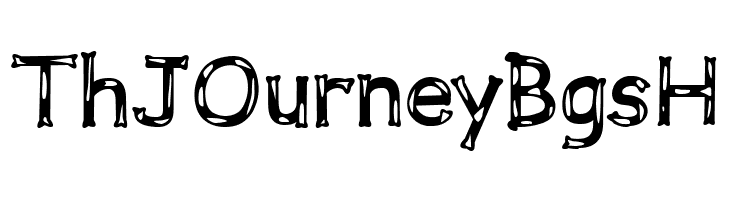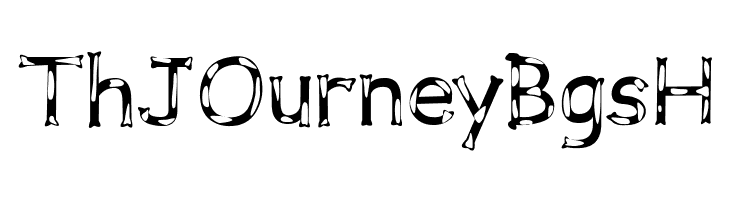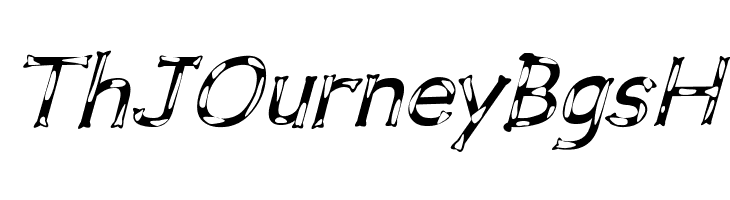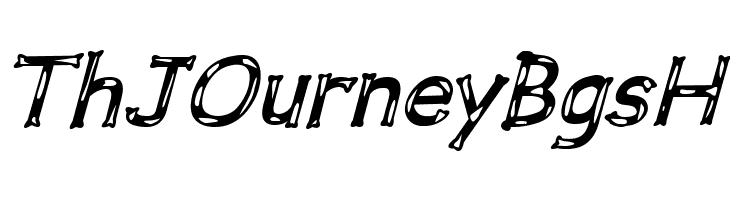
Dalmata Dream Bold Italic Font
A bold, italicized font with a playful, artistic style and irregular strokes.
Dalmata Dream Font
A playful, spotted font with a whimsical and decorative style.
Dalmata Dream Bold Font
A bold, decorative font with playful, spot-like patterns.
Dalmata Dream Italic Font
A playful, italicized font with a Dalmatian-inspired spotted pattern.